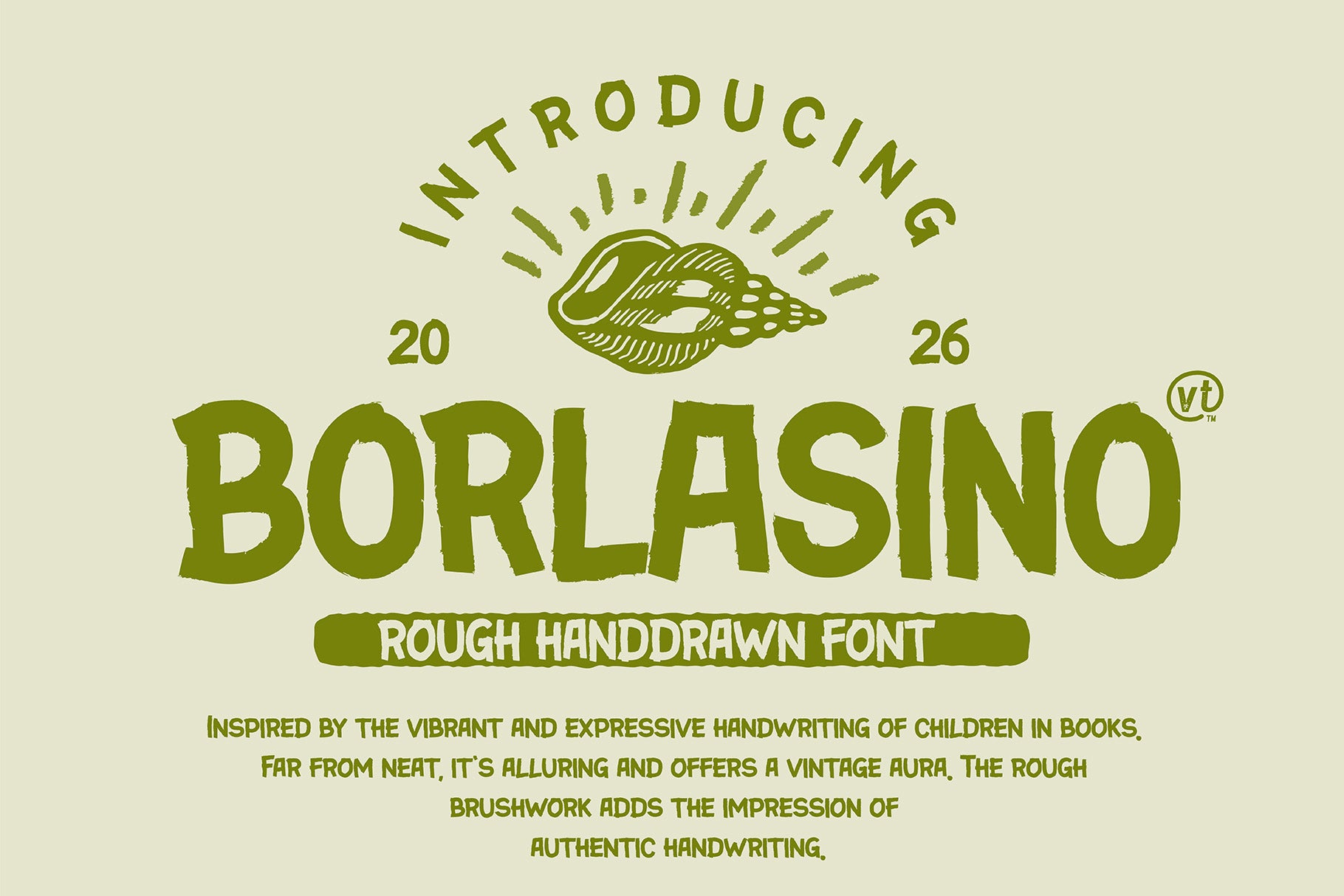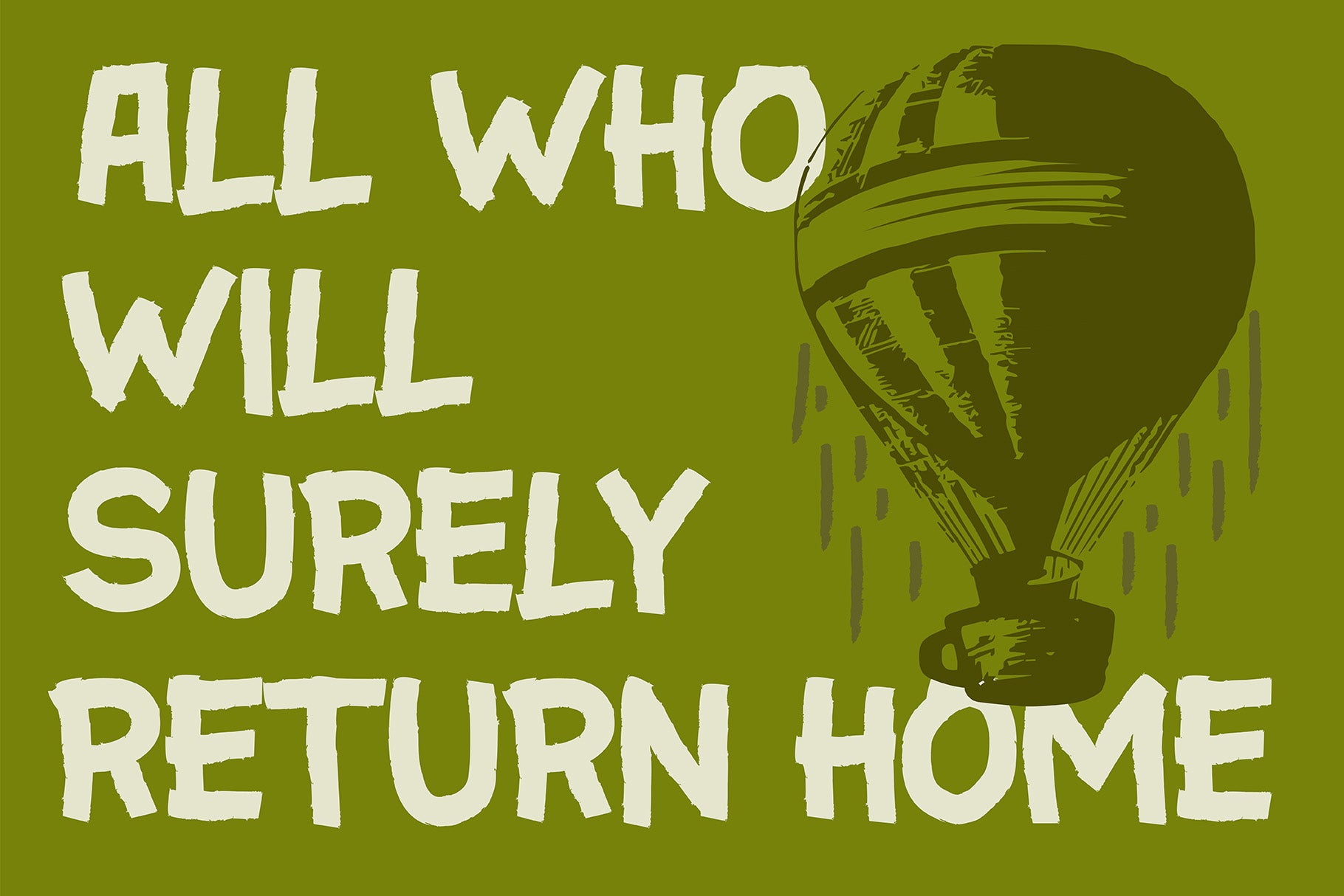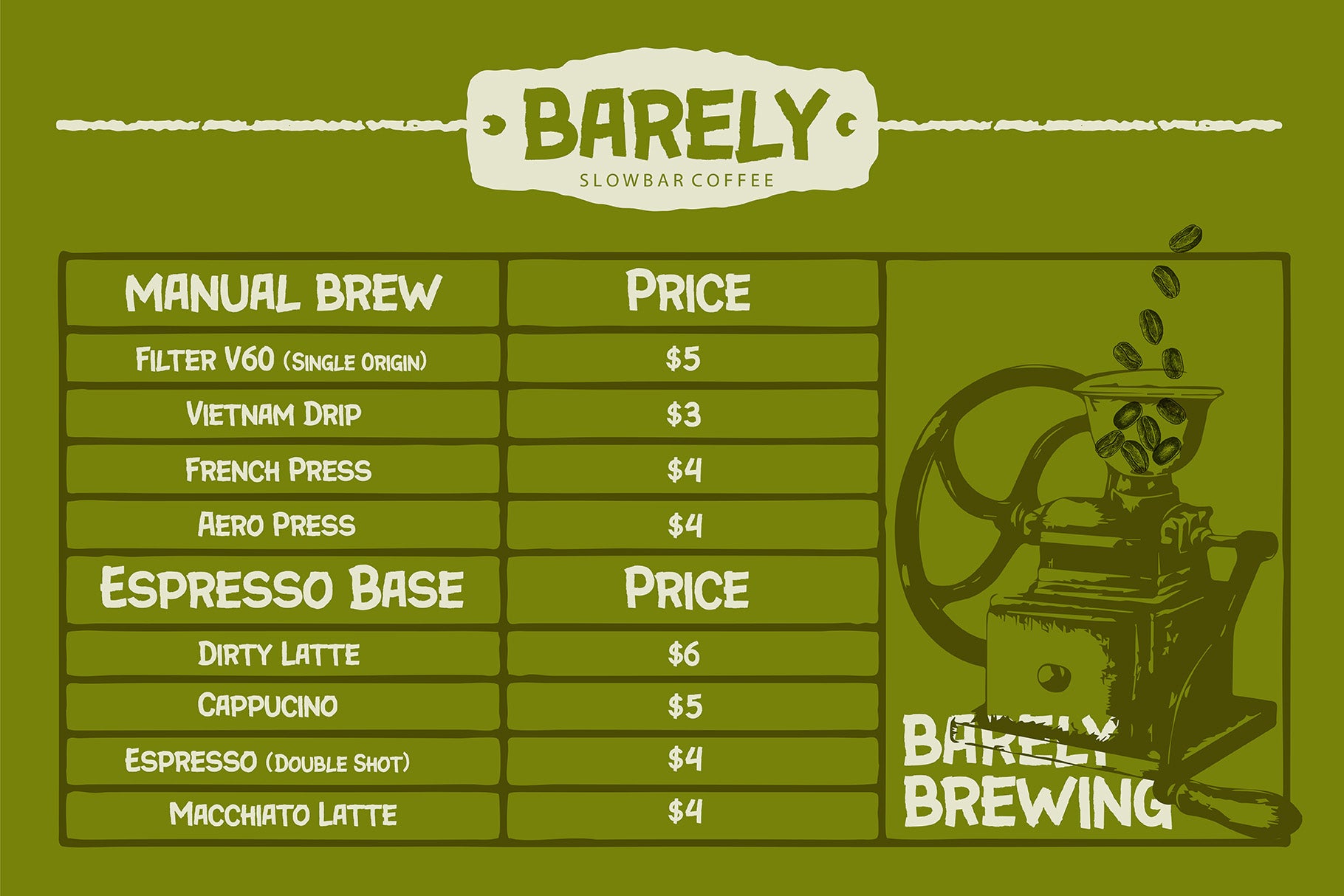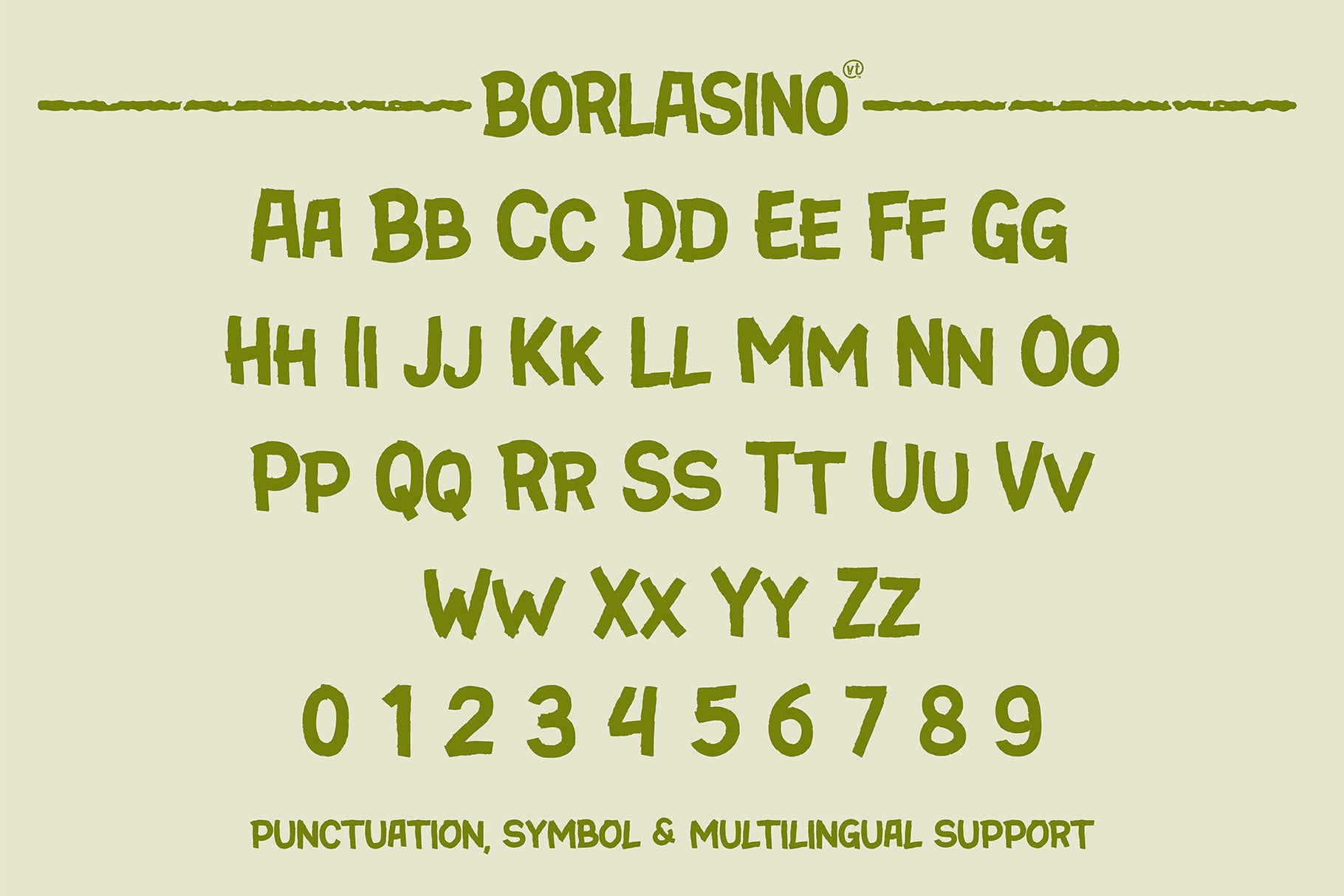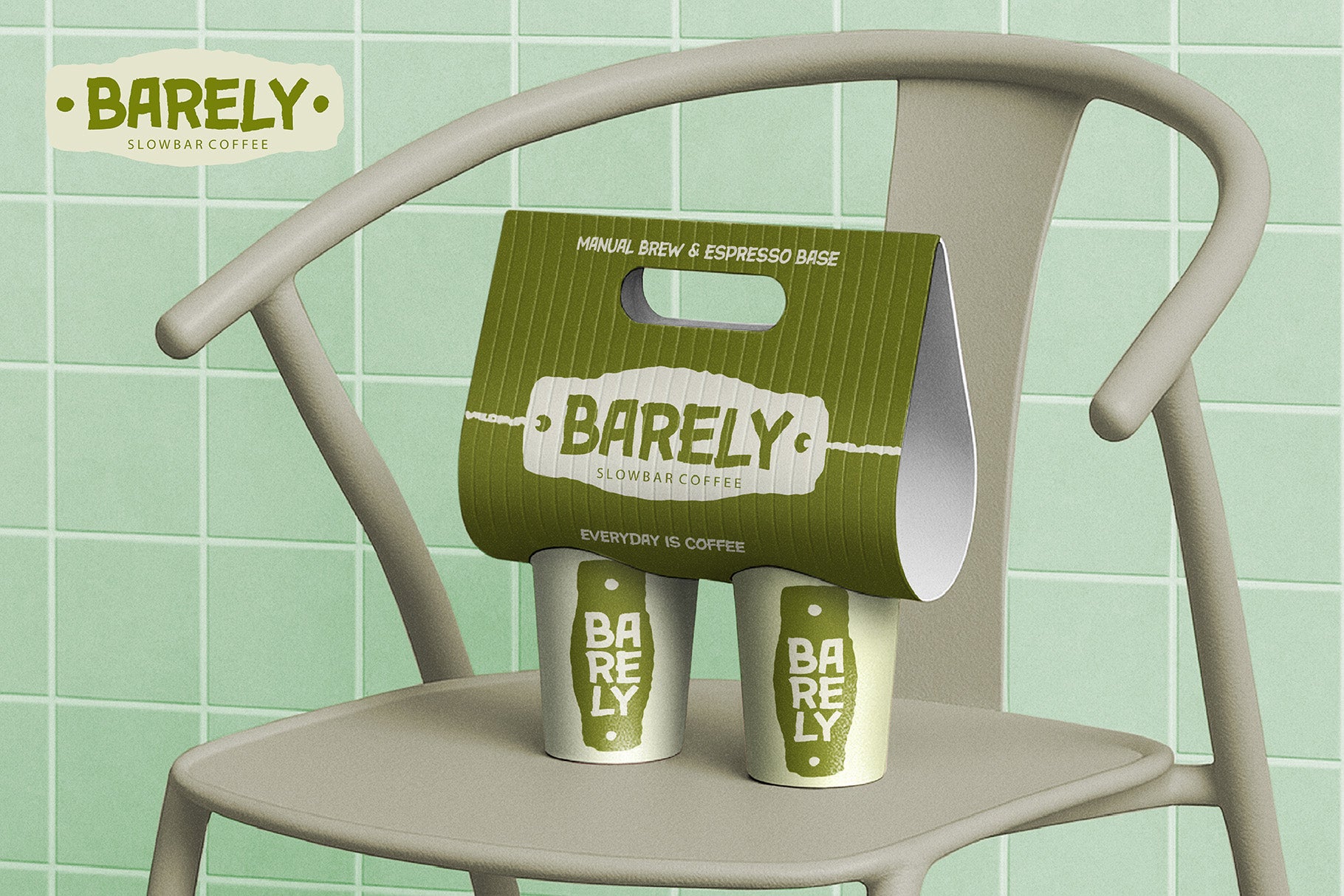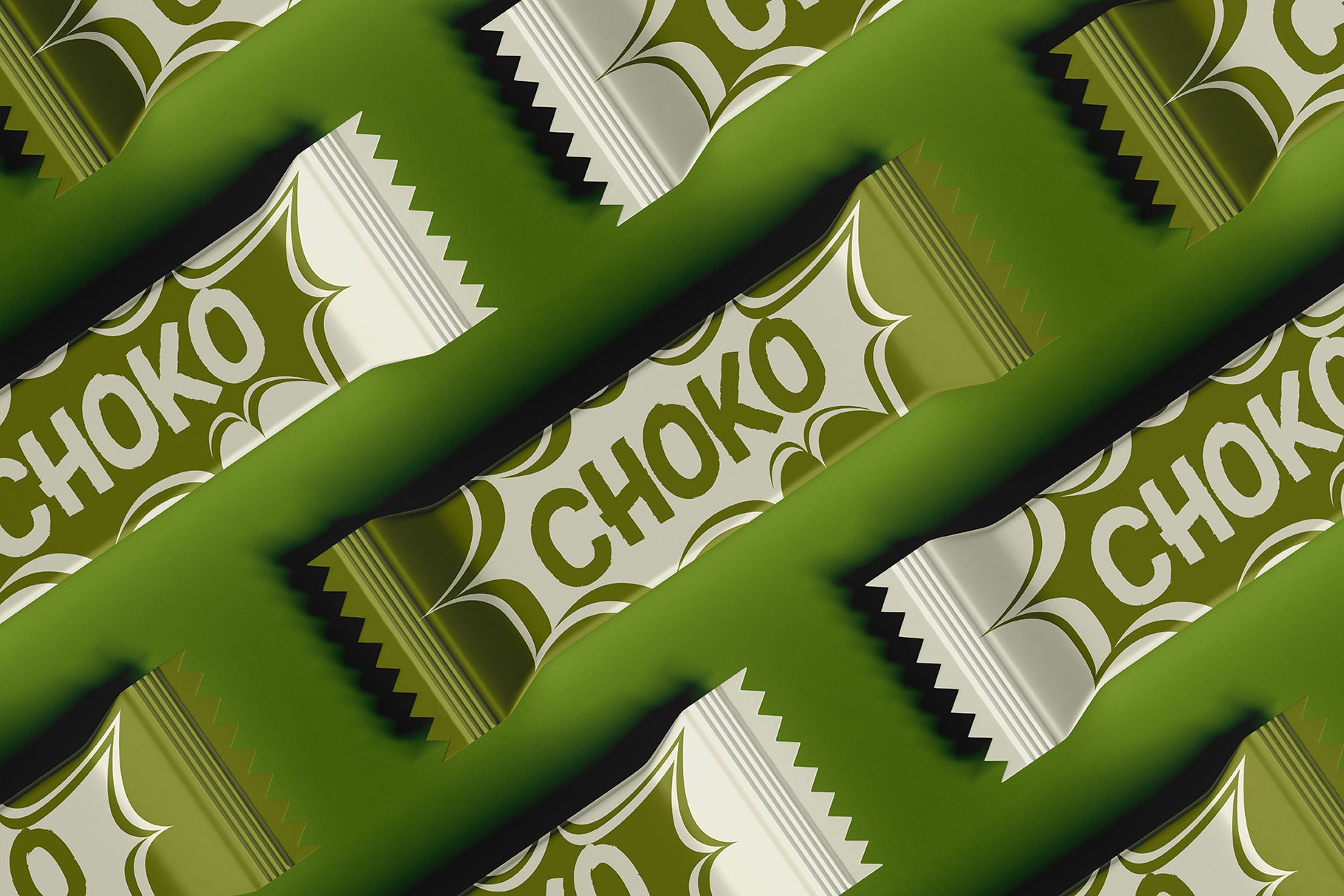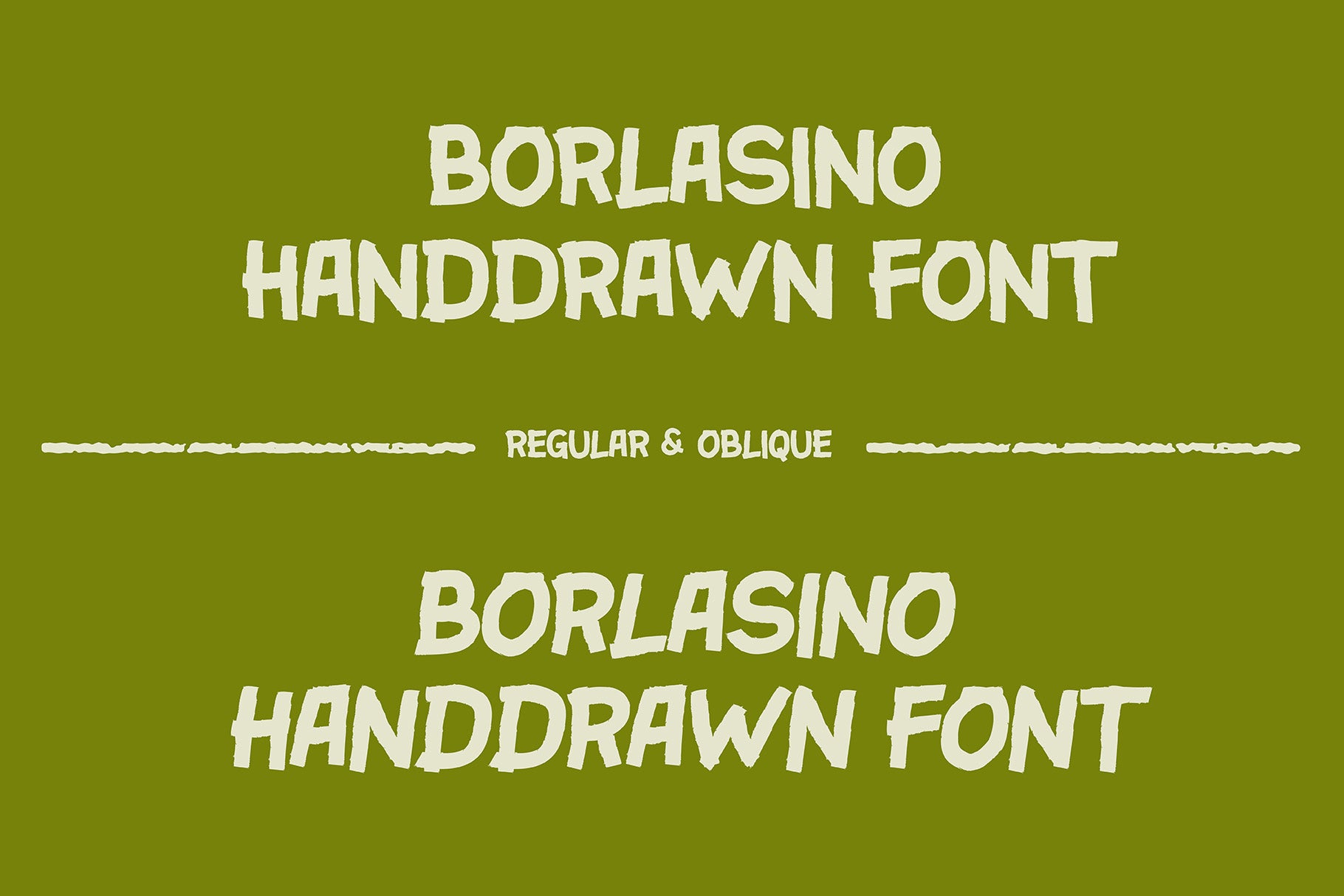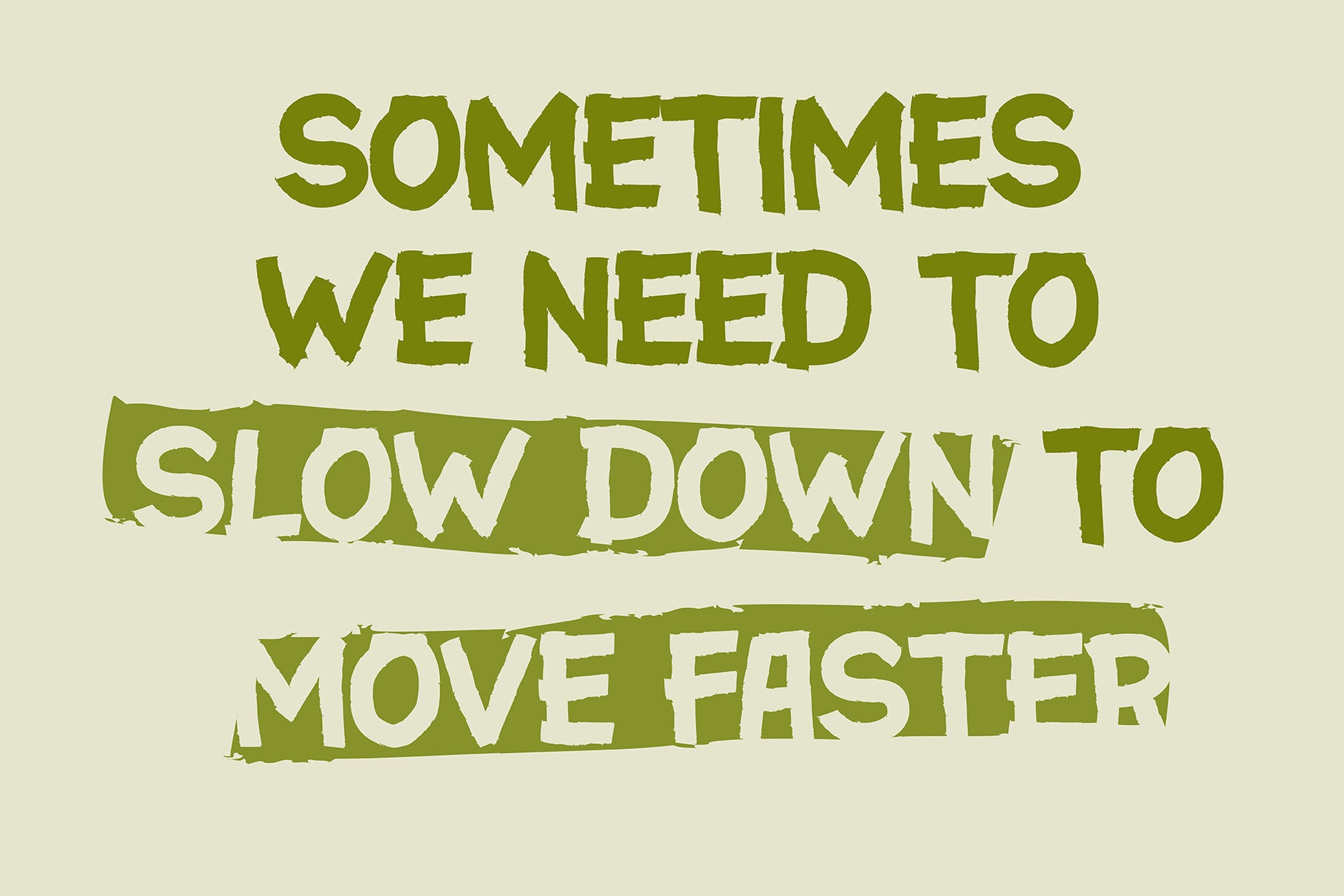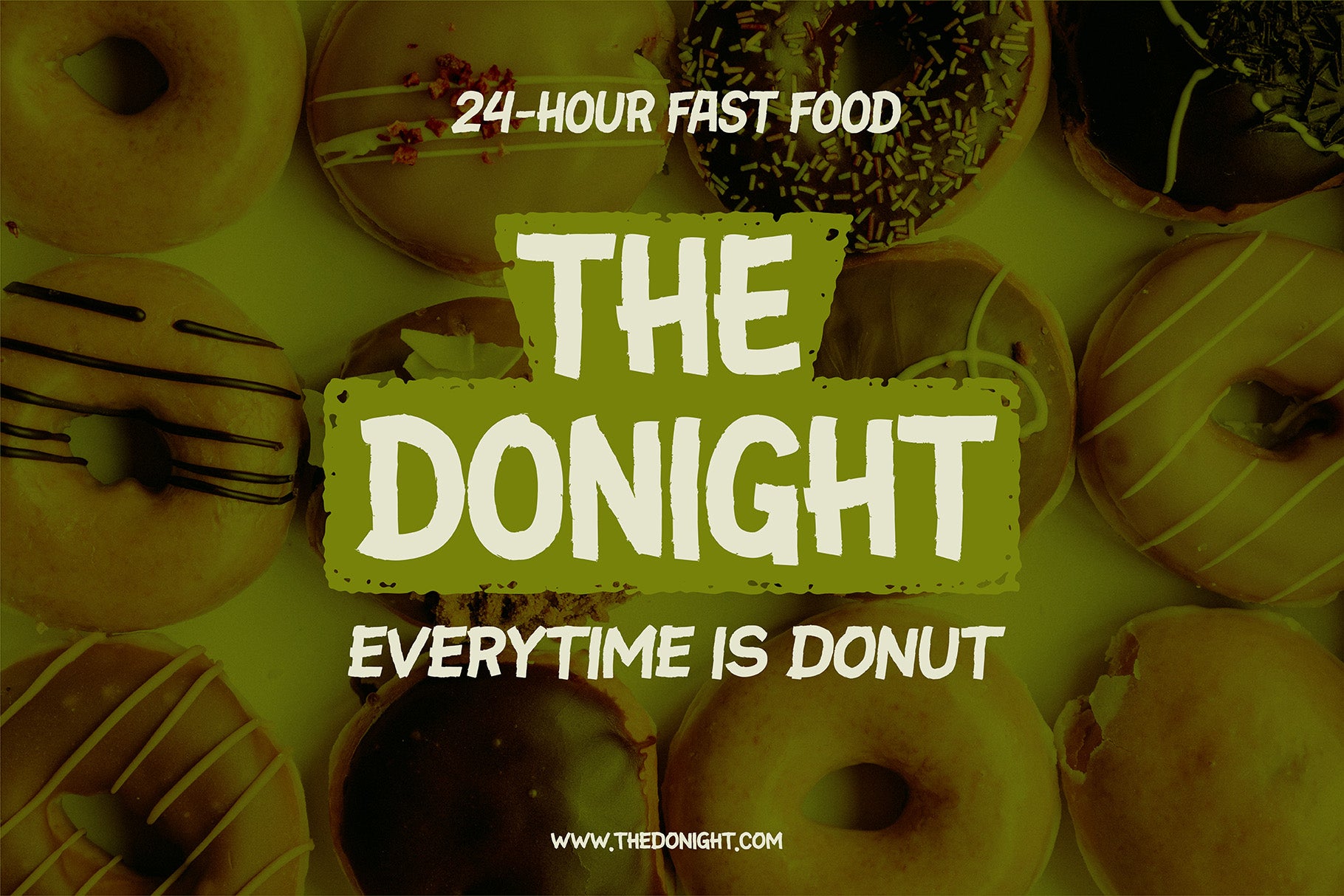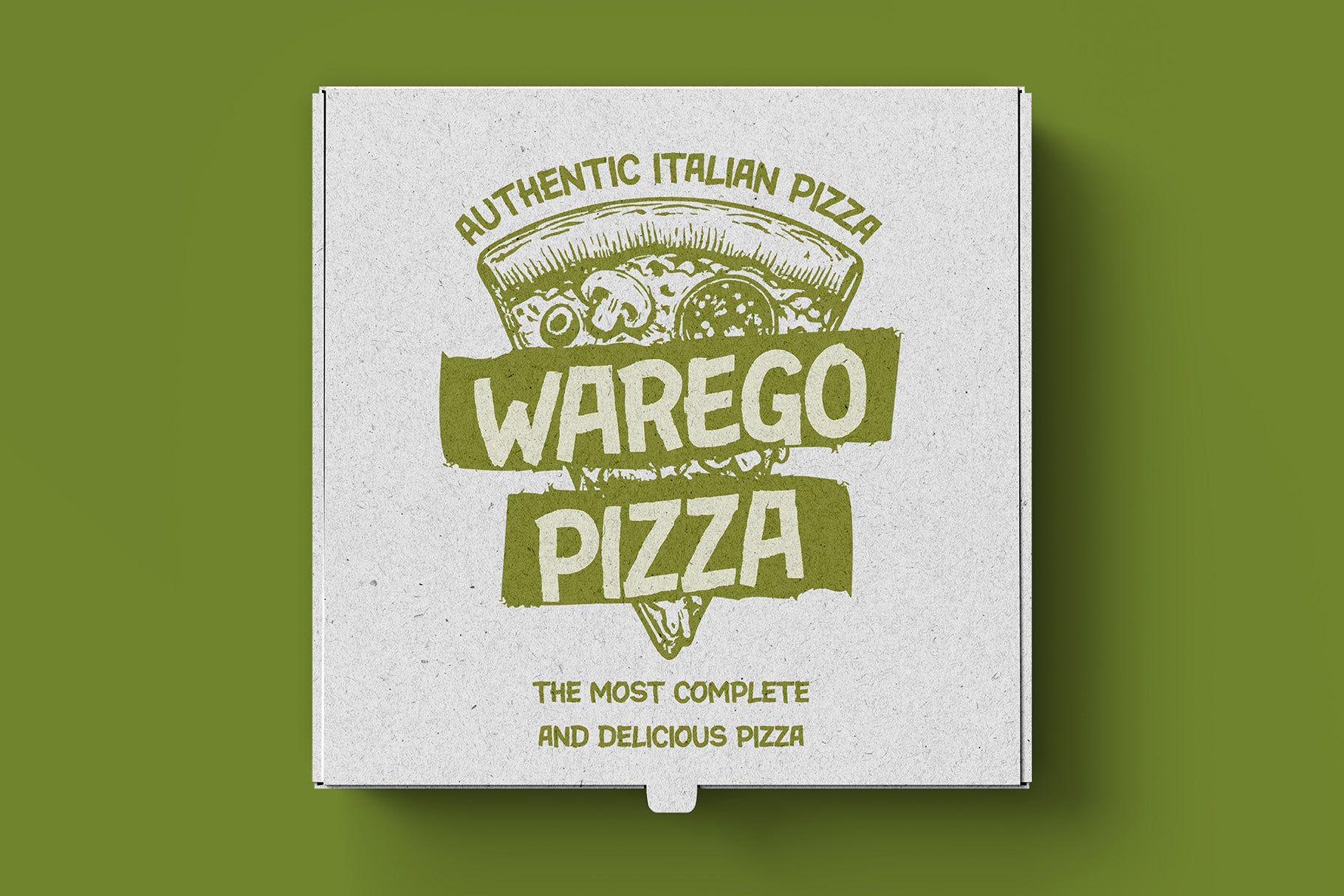
Borlasino – Handcrafted Brush Font created by ViactionType is a powerful vintage-inspired typeface created with authentic hand-drawn brush strokes. Every character reflects organic textures, natural imperfections, and bold movement, delivering a genuine handcrafted feel rooted in classic brush lettering.
Designed for designers who seek warmth, personality, and strong visual impact, Borlasino is perfect for vintage branding, logo design, packaging, posters, apparel, coffee labels, signage, album covers, and editorial projects. The font family includes two expressive styles—Regular and Oblique, offering flexibility for dynamic typography and layered compositions. With full multilingual support, Borlasino is ready for international and commercial use.
Borlasino blends nostalgic vintage aesthetics with modern usability, making it an excellent choice for bold, handcrafted visuals that stand out.
- Authentic Handcrafted Brush Strokes Created from real brush lettering to preserve natural texture, pressure variation, and organic edges.
- Vintage & Retro Character Inspired by classic signage and retro typography, delivering a timeless handcrafted look.
- Two Font Styles Includes Regular for solid compositions and Oblique for dynamic, energetic layouts.
- Strong Visual Impact Bold letterforms designed to stand out in headlines, logos, and display typography.
- Multilingual Support Supports multiple languages, making it suitable for global branding and international projects.
- Versatile Use Cases Ideal for branding, packaging, posters, apparel, café & coffee labels, social media graphics, and editorial design.
- High-Quality Brush Texture Carefully refined for clean output across print and digital media.